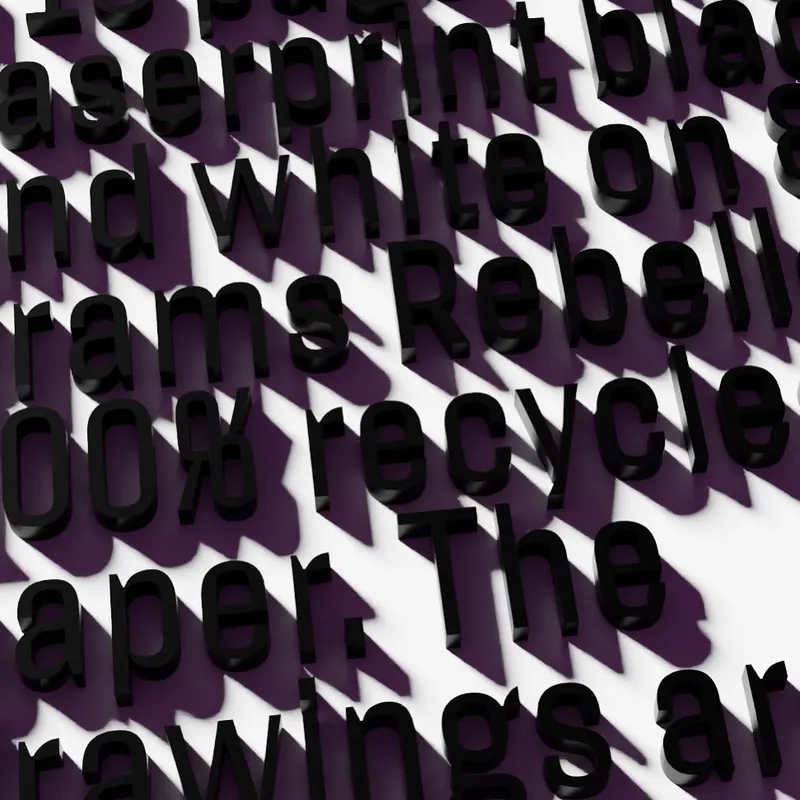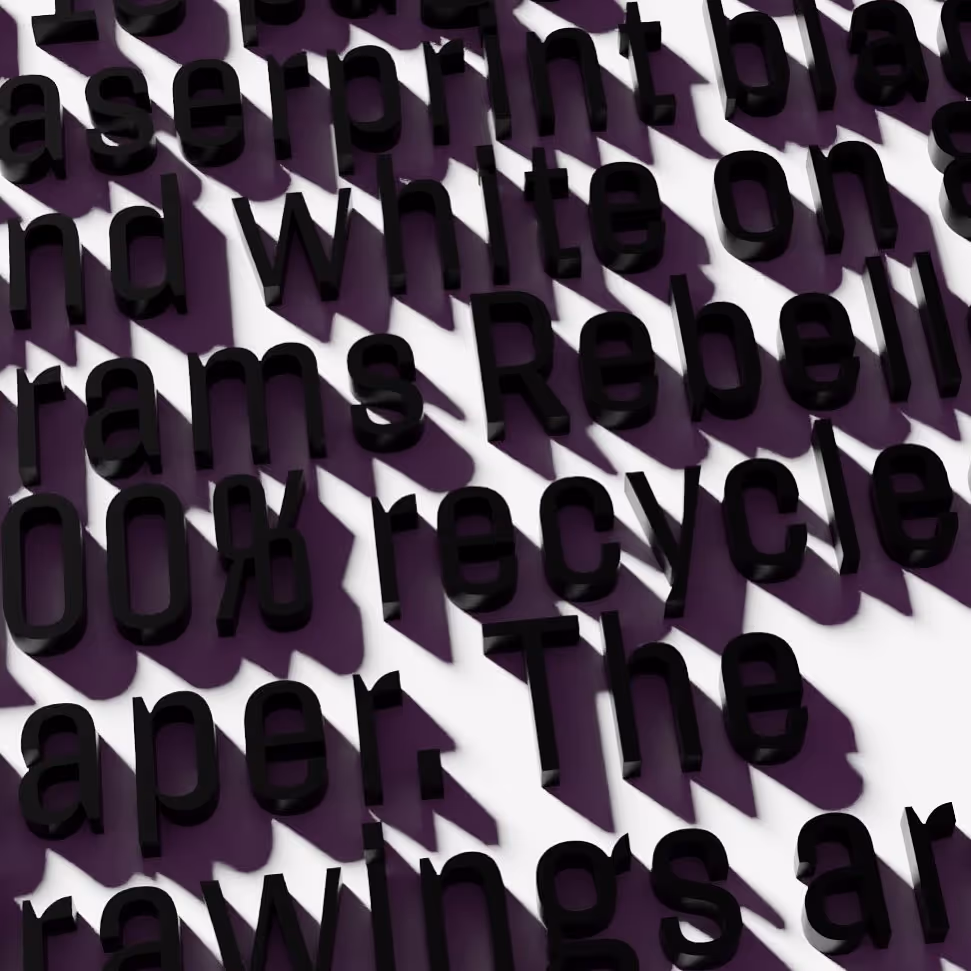
Action Text: a quirky sans with variable weight and bright + dark grades. At Commercial Type.
Action Text
Action Text was designed by LettError and is available at Commercial Type
Action Text is the super crisp and tight sibling of Action Condensed and Action Grotesque. It shares some of the shapes of the condensed, but it can handle small text and more structured information. Action Text comes in variable and flat formats.
Obviously the curves and details of this Vickers Super VC10 did not translate directly into letterforms. But it is evidence that even in harshest conditions there is room for an elegant curve.
This 30 second clock shows all variations and weights of Action Text. Upright and Italic, four weights each, in Bright and Dark grades. Lining numerals, all styles on the same tabular width. The italics are duplexed with the uprights.
Bright and Dark The grades: lighter and darker versions of the same weight. Could be used for animated effects in UI?